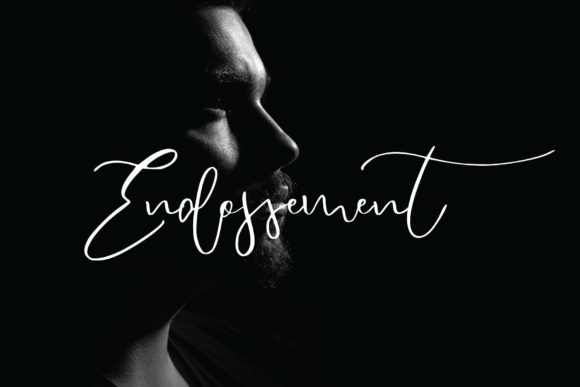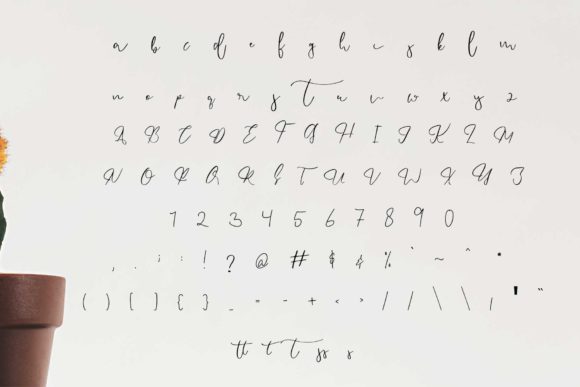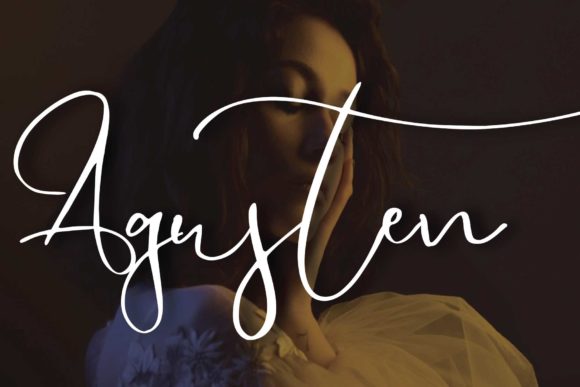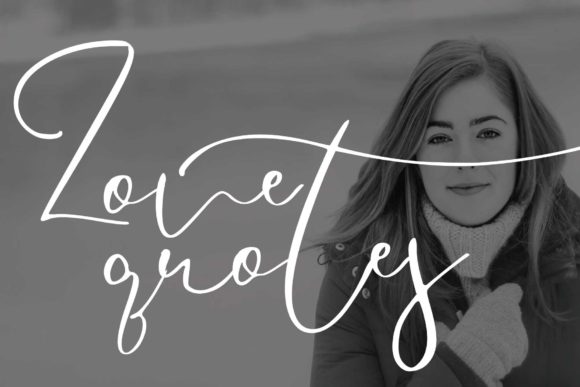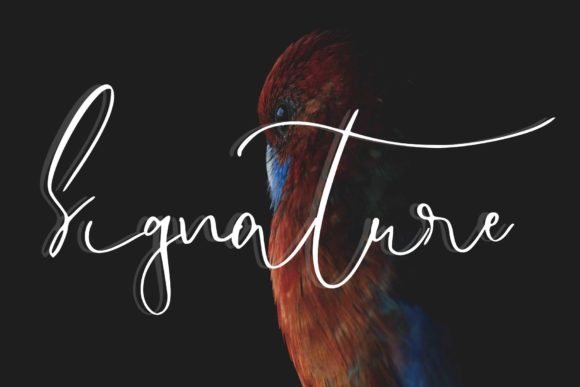
Endossement Font
About Endossement Font
Endossement is a beautifully designed handwritten font. Give your next projects a stylish look with this lovely font.
It will be the perfect choice for branding, logos, invitations, signatures, crafting and more.